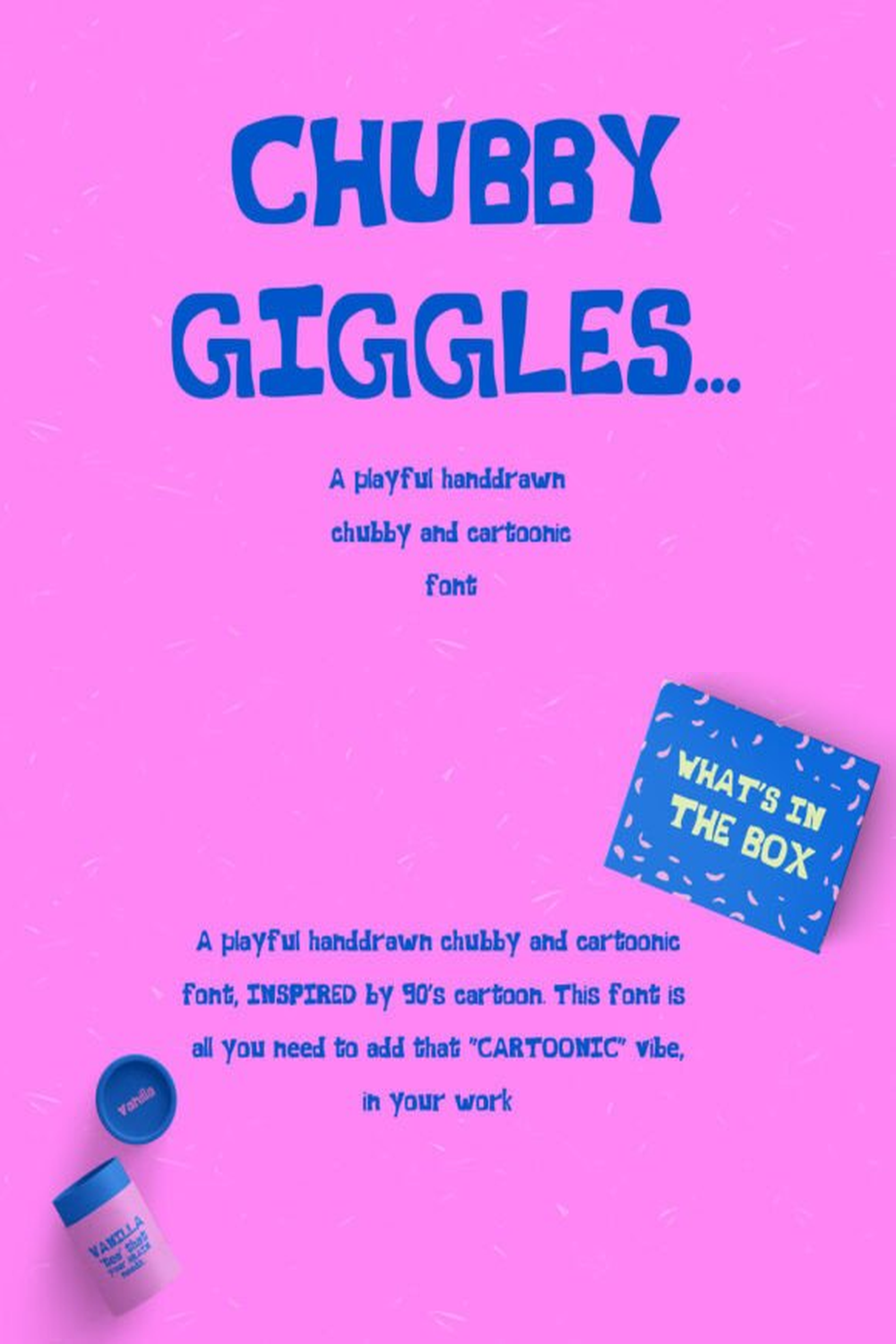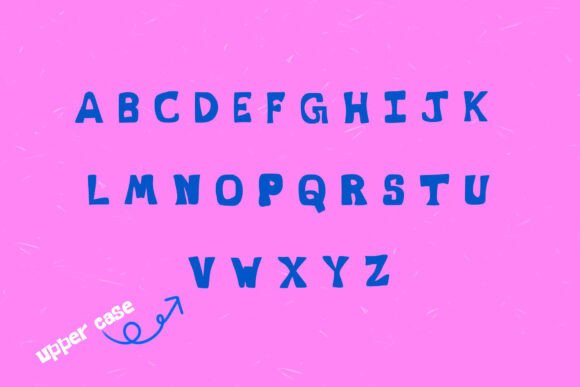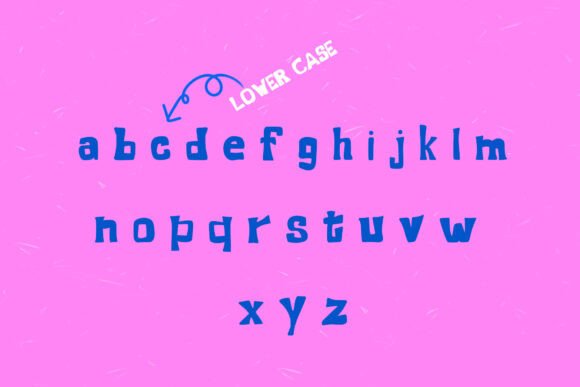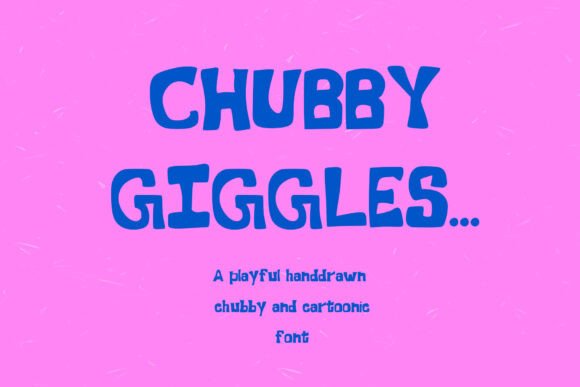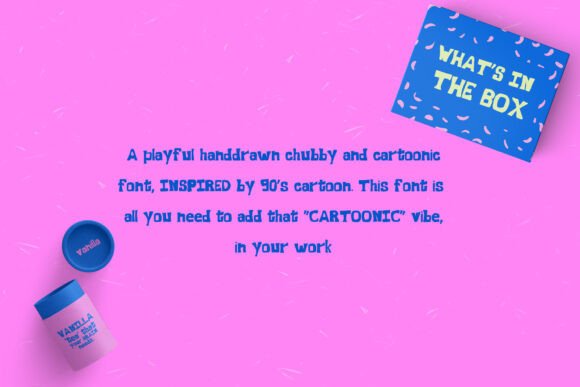
Chubby Giggles Font: A Playful Cartoon Font for Kids & Fun Designs!
About the Chubby Giggles Font
Experience the unique personality of Chubby Giggles Font, a font designed for impact. A playful, hand-drawn, chubby, and cartoonic font, INSPIRED by 90’s cartoons. This font is all you need to add that “cartoon” vibe to your work.
With chunky, cartoon-like letters and a cheerful vibe, this typeface is perfect for kids’ books, birthday invites, comic-style graphics, classroom decor, and any project that needs a big dose of fun. It’s quirky, bold, and guaranteed to make you smile.